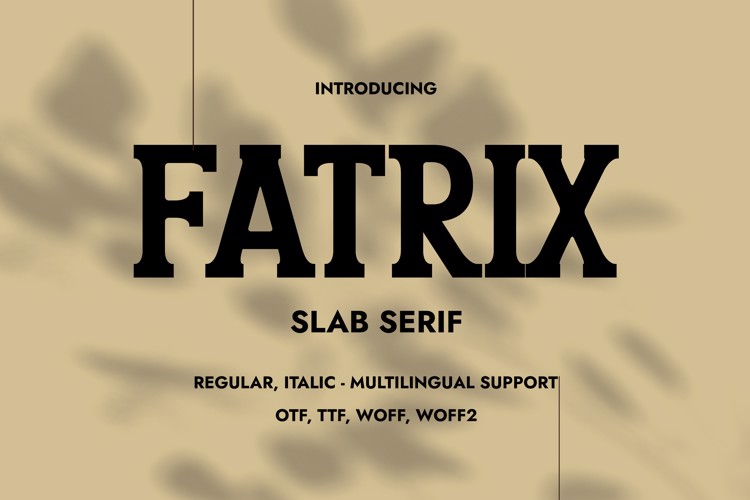
Fatrix Font
๐จ Font Name: Fatrix by Minimalist Art Studio
๐จ Font Description: Fatrix is a slab serif with multilingual supportโideal for editorial strength, rustic branding, and structured packaging.
โ Complete Latin set + multilingual diacritics
โ Alternates, stylistic sets & ligatures
โ Numbers, small caps, and extended punctuation
โ Bonus italics and family styles